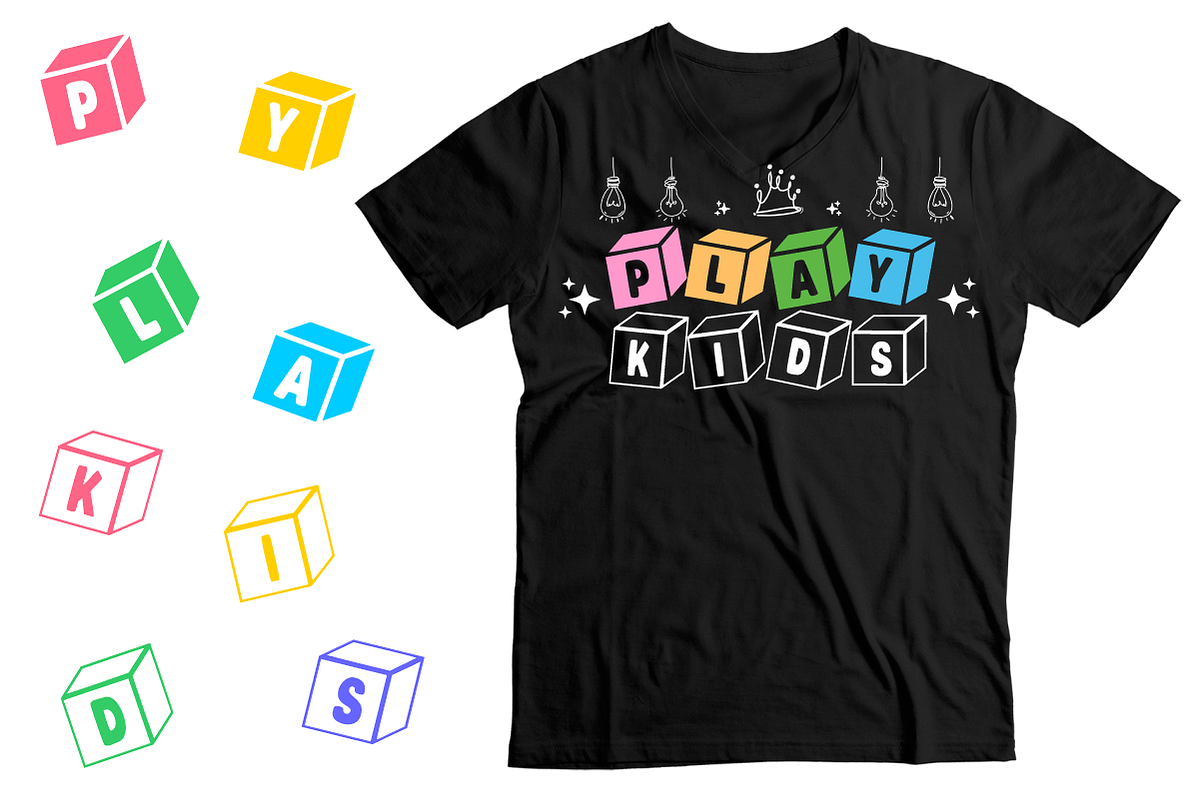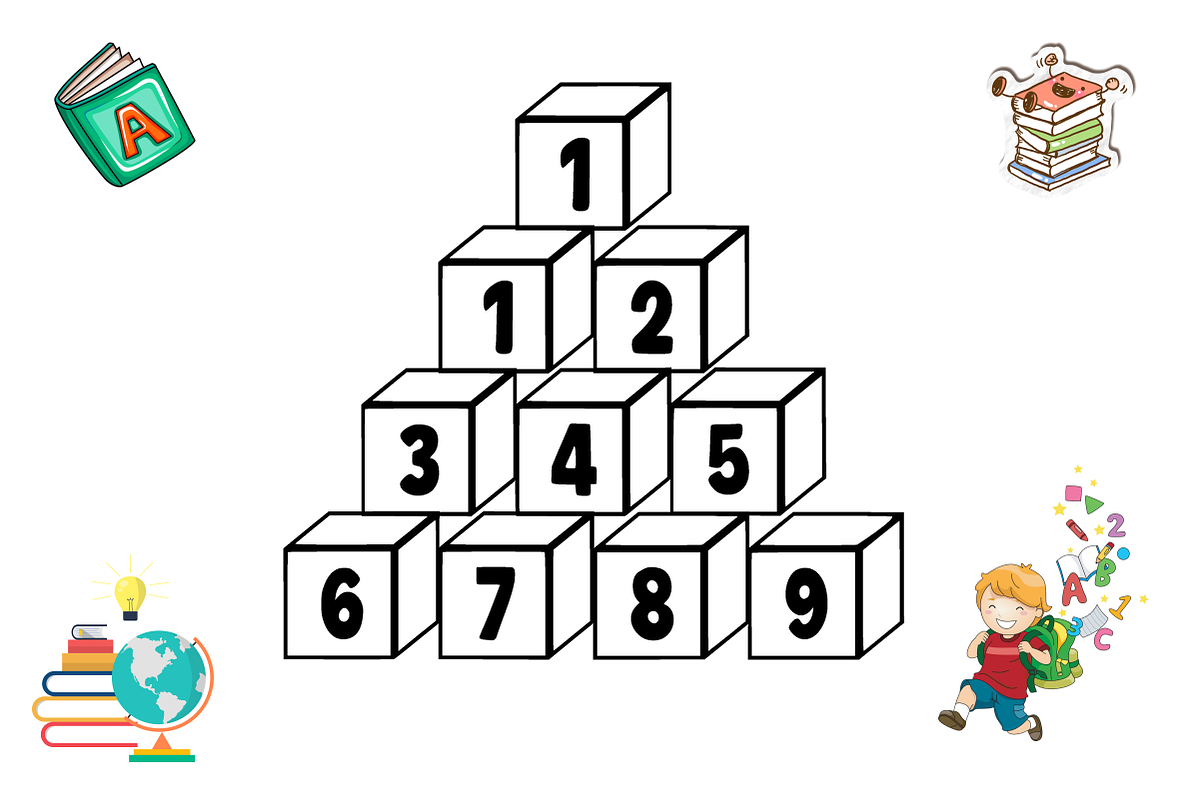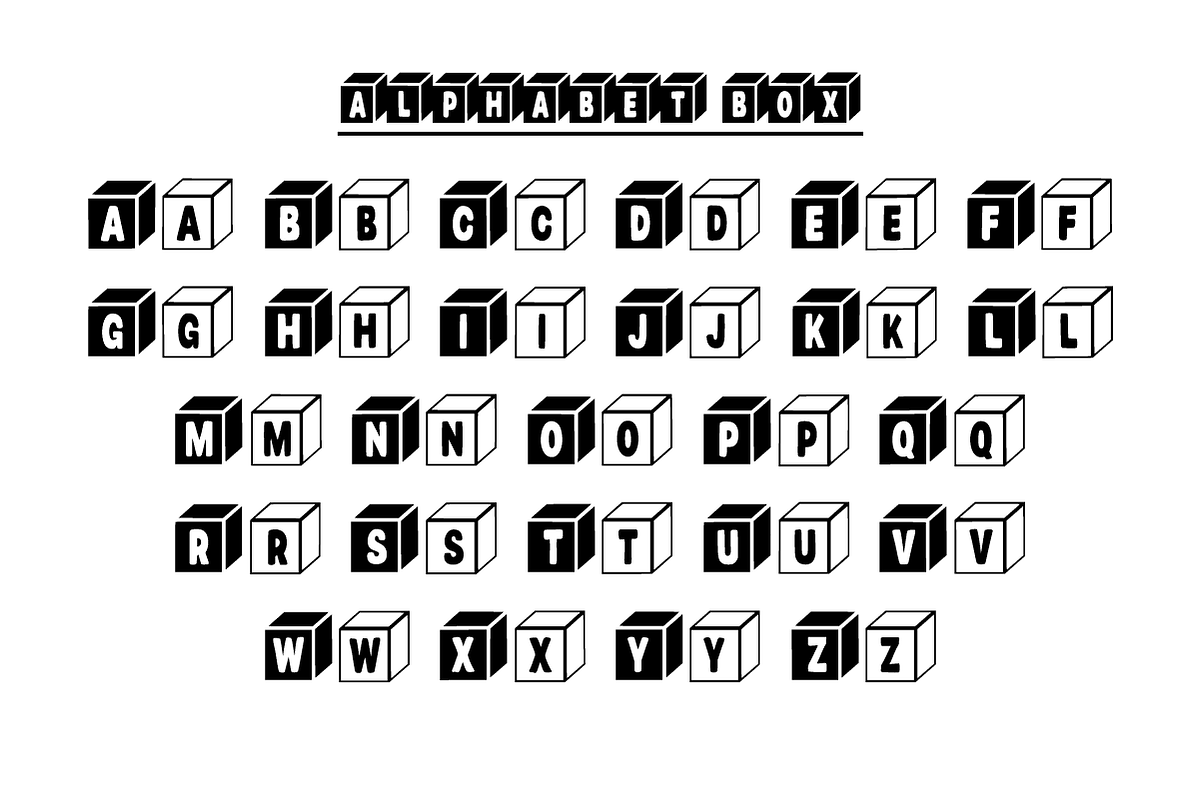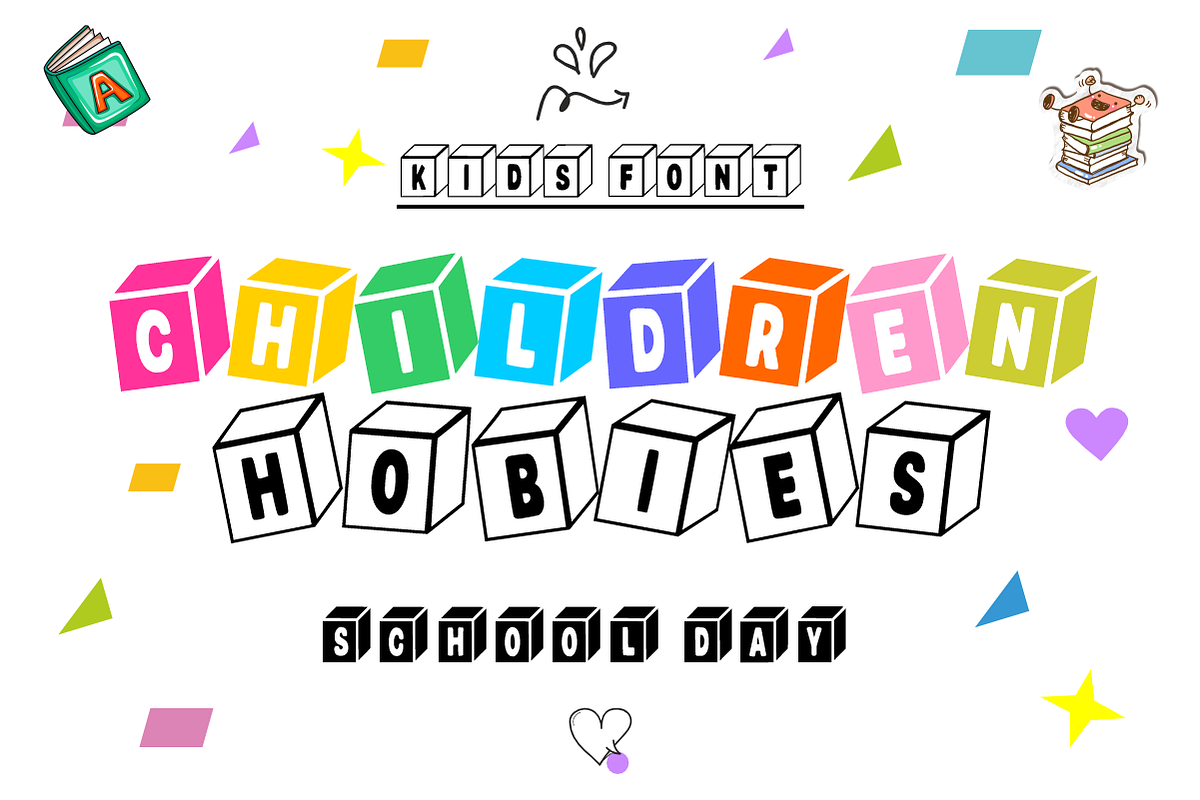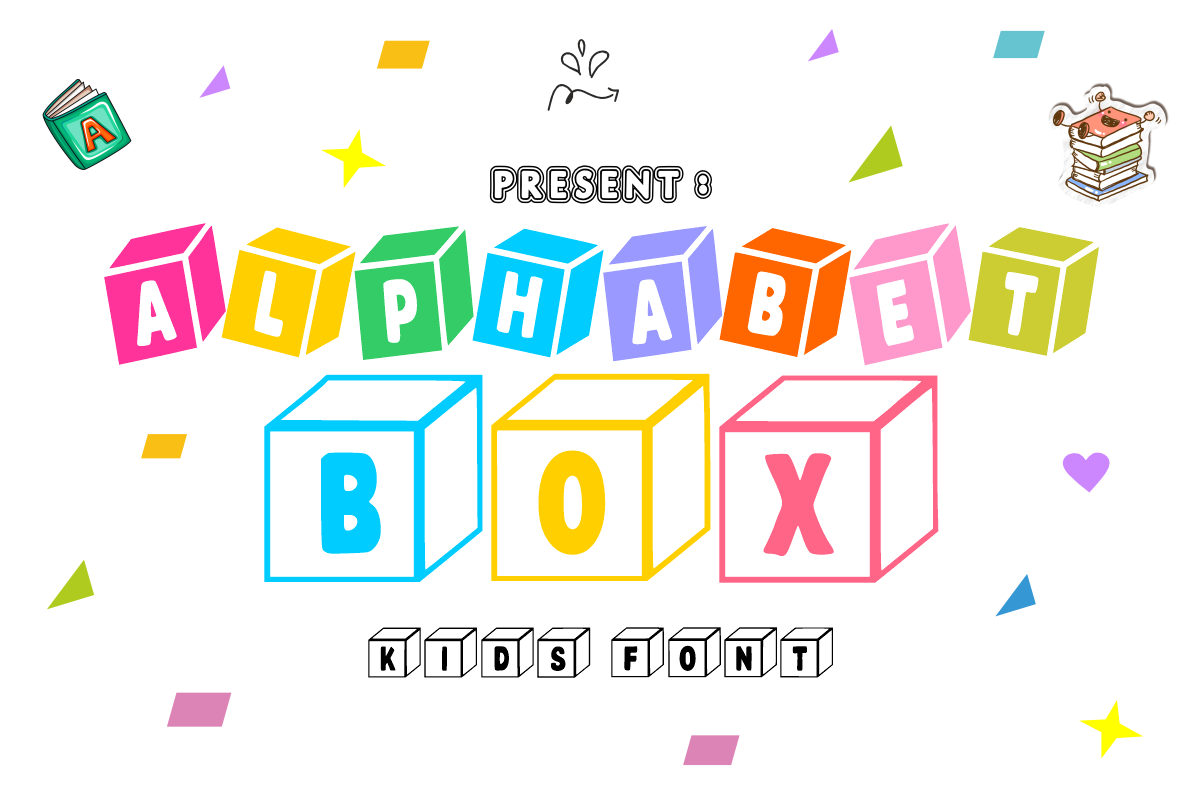
Alphabet Box -Playful Geometric Font
📦 Alphabet Box – Playful Geometric Block Font ✨
Think inside the box and make your designs pop!
Alphabet Box is a creative and eye-catching display font where every character is perfectly encased in its own geometric frame. Inspired by childhood building blocks and modern sticker aesthetics, this font combines a bold, sans-serif heart with a structured square border. It’s the ultimate tool for designers who want to create instant "label" or "badge" looks without any extra effort.
🌟 Why Alphabet Box is a Creative Essential:
Instant "Sticker" Aesthetic: The built-in box frame creates a high-contrast, graphic look that is perfect for bold headlines and modern branding.
Balanced & Bold: Designed with thick, legible strokes to ensure your message is clear, even when scaled down.
Effortless Layouts: Since each letter occupies its own block, creating aligned, grid-based designs becomes incredibly simple and visually satisfying.
🎨 Perfect For:
🏷️ Branding & Logos: Create unique, badge-style logos for apparel, startups, or creative studios.
👕 Streetwear & Merch: Standout typography for T-shirts, hoodies, and tote bags.
🎒 Kids & Education: Fun classroom posters, book covers, and educational app interfaces.
📱 Social Media: Punchy YouTube thumbnails, Instagram quotes, and TikTok captions.
🖍️ DIY Crafts: Perfect for stickers, planner decals, and vinyl cutting (Cricut/Silhouette).
Full Character Set: Unique "Boxed" Uppercase Letters (A-Z).
Numbers & Symbols: Matching block-style numerals (0-9) and essential symbols.